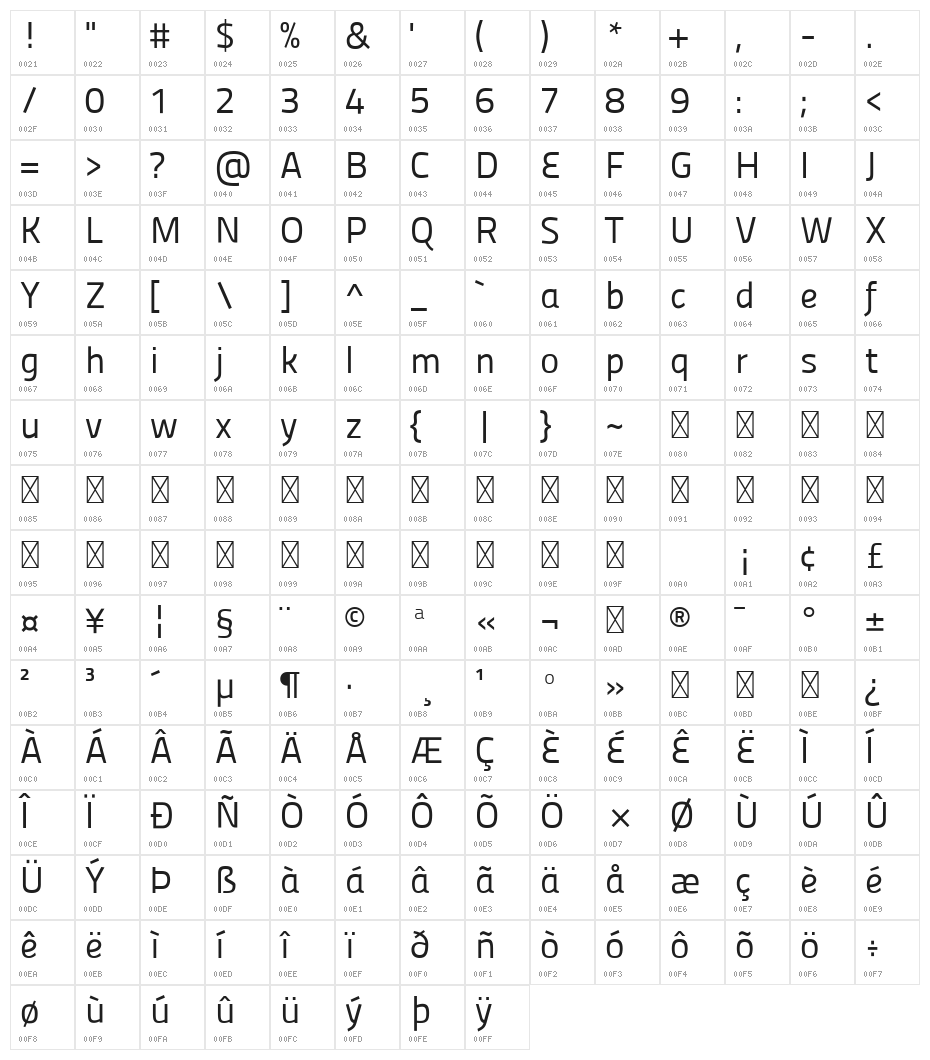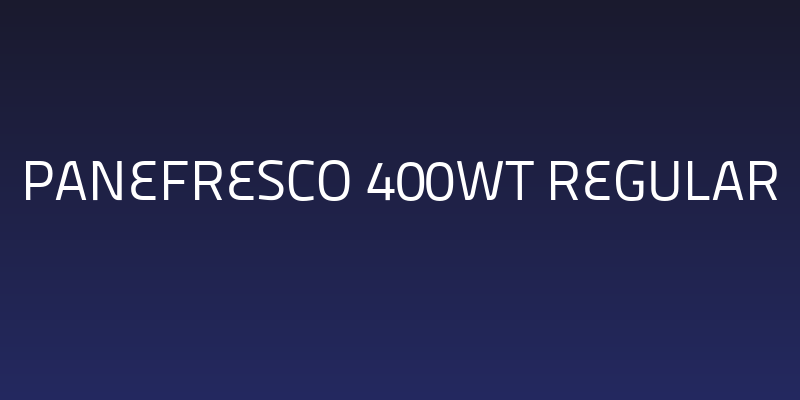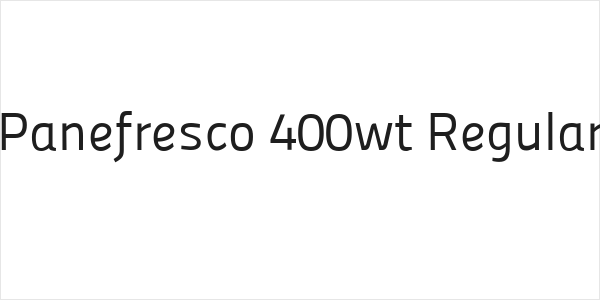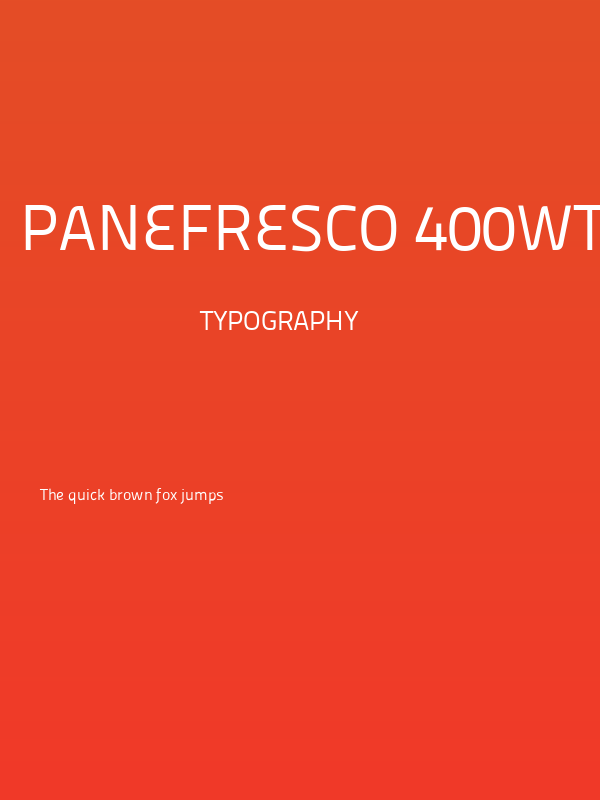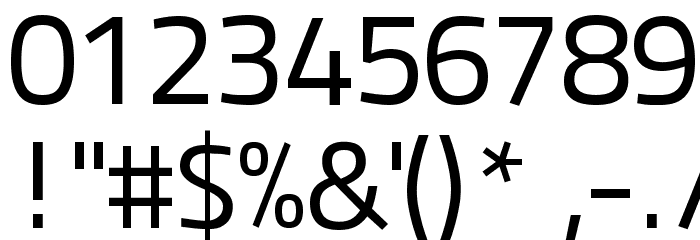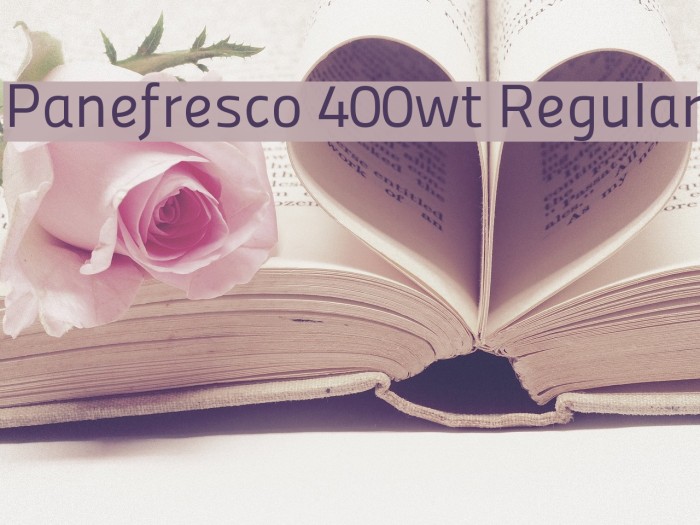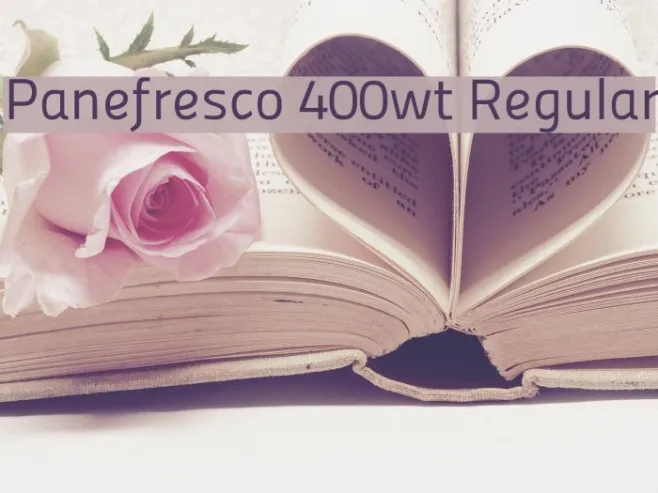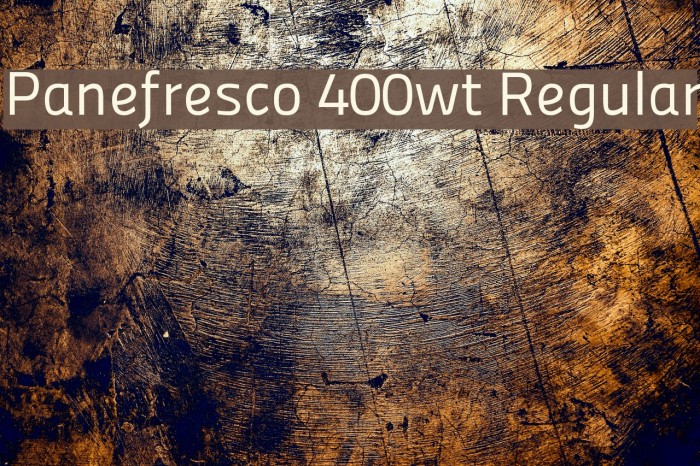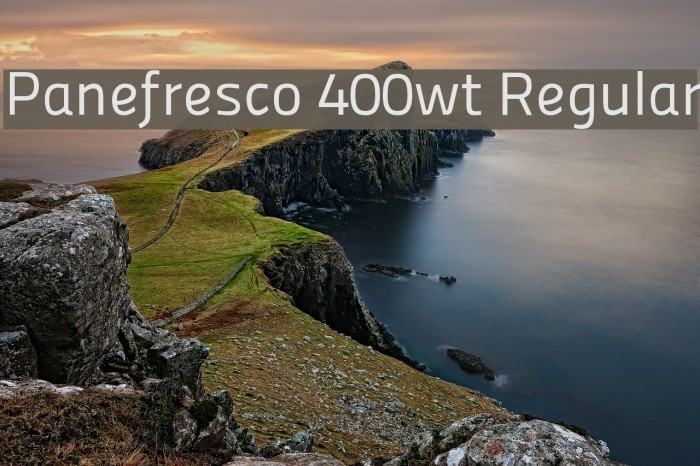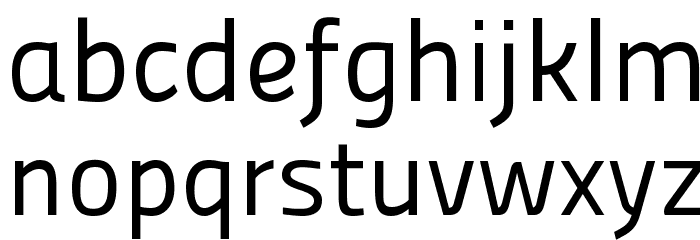
Panefresco 400wt Regular Font
Panefresco 400wt Regular Description
This font features a clean and modern sans-serif design, characterized by its geometric shapes and uniform stroke widths. The uppercase letters are tall and slightly condensed, providing a sleek and professional appearance. The lowercase letters maintain a consistent height, contributing to a balanced and harmonious look. The numerals are clear and easy to read, making them suitable for various applications. Special characters are well-integrated, ensuring versatility in design projects. Overall, this font exudes a contemporary feel, ideal for digital and print media.